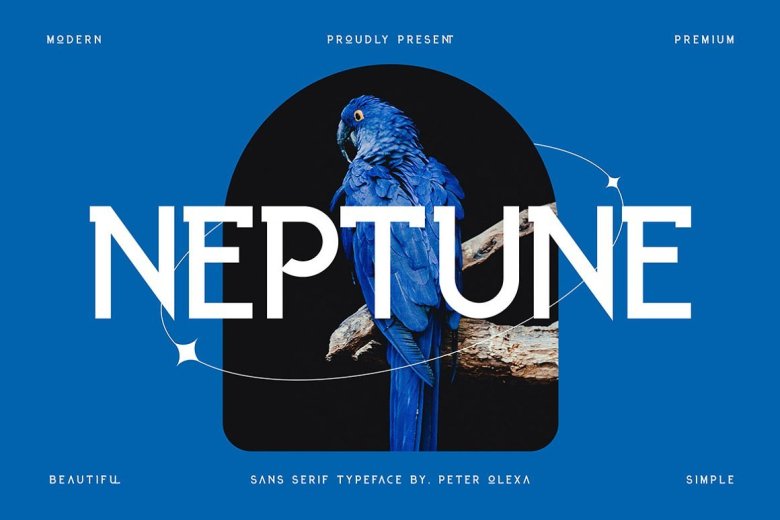
Neptune Font
Neptune Font is a Creative, modern & minimalist sans serif typeface for your new projects. With sharp or geometric style. Great for modern or futuristic projects.
Neptune Sans Serif Font